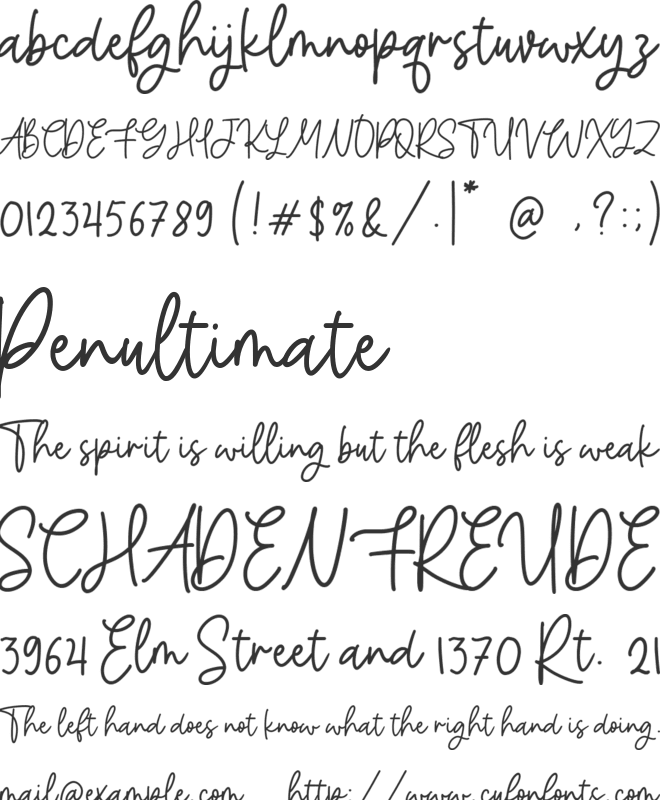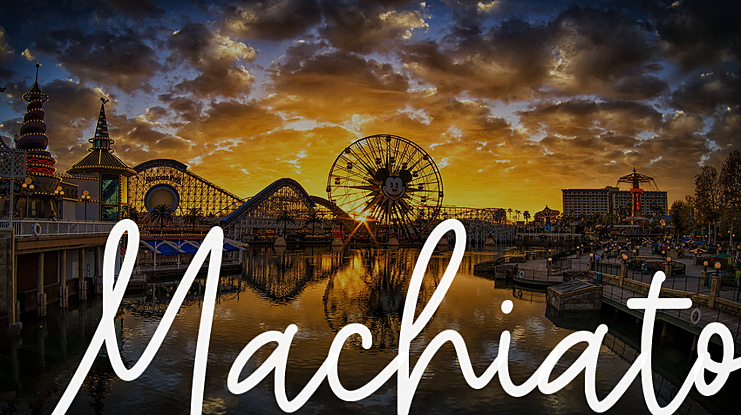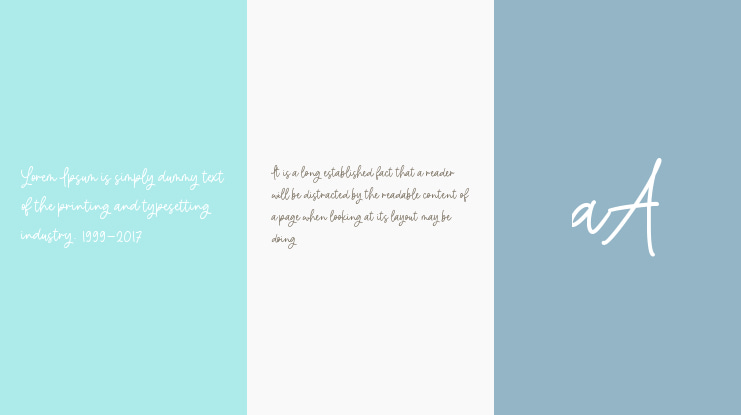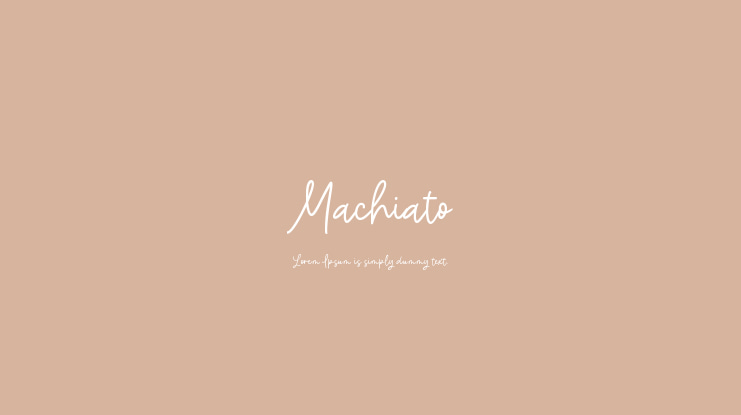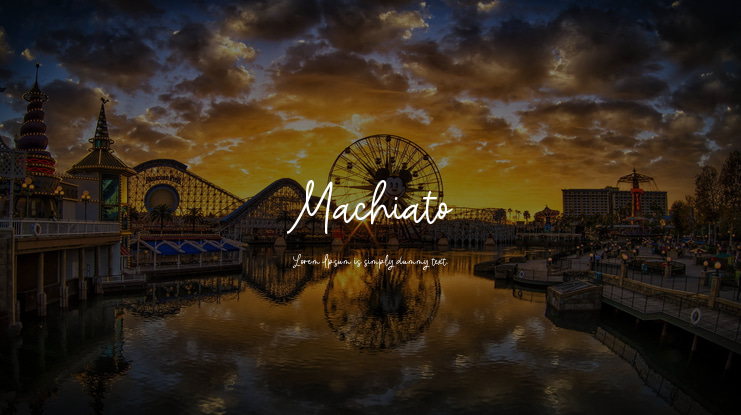
Machiato Font
Proudly Present, Machiato Font.
Machiato is a monoline handwritten font.
Machiato is perfect for product packaging, branding project, magazine, social media, weddings, or just used to express words above the background.
Machiato font preview